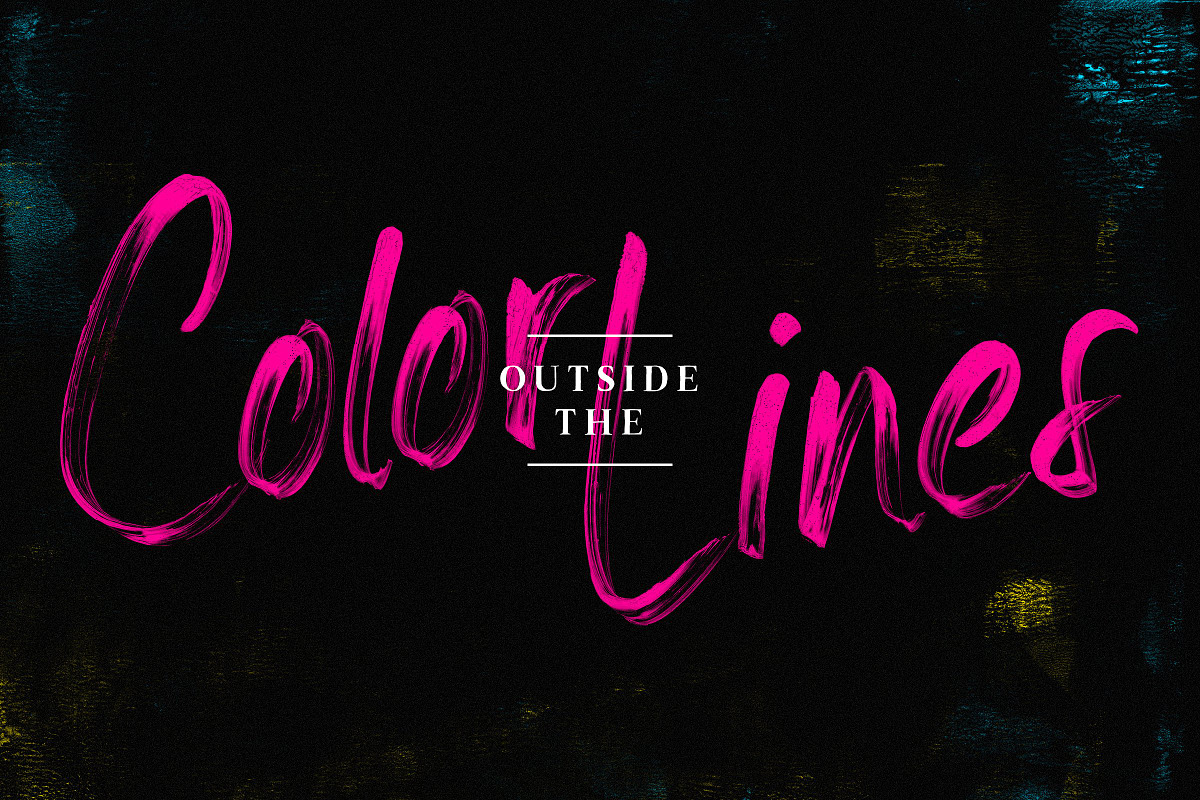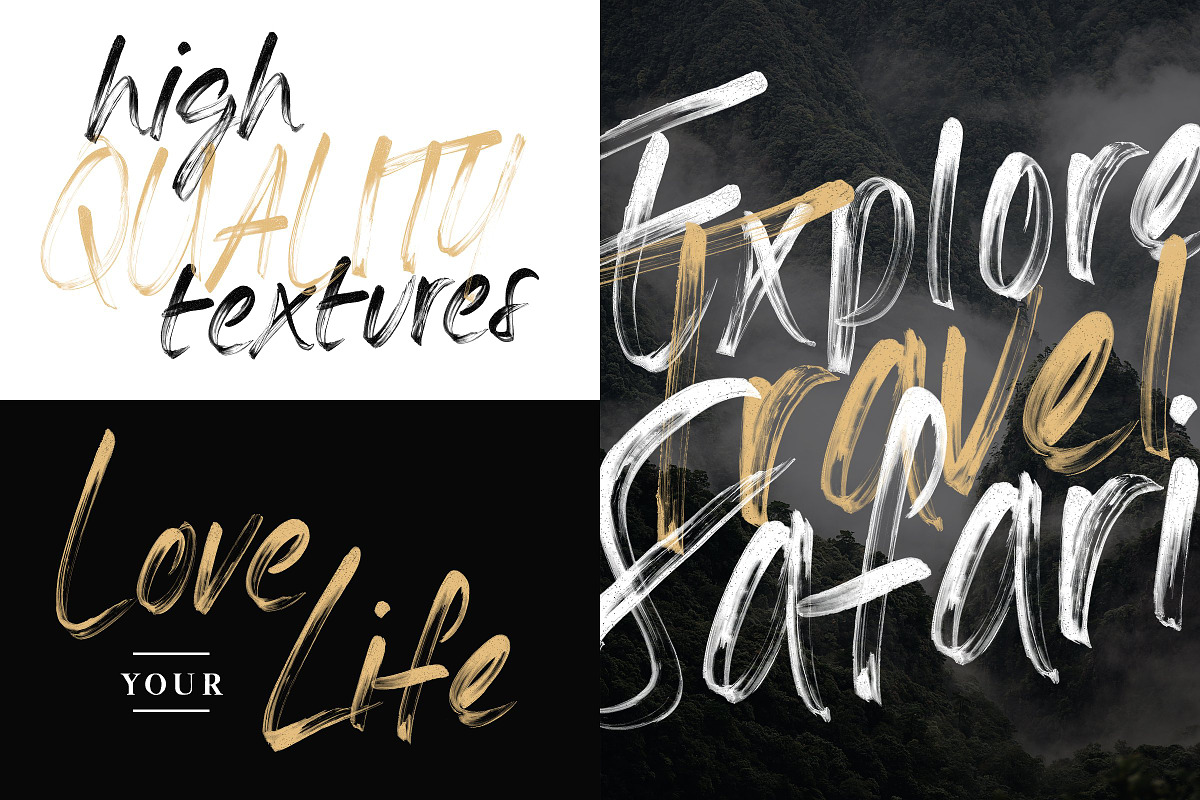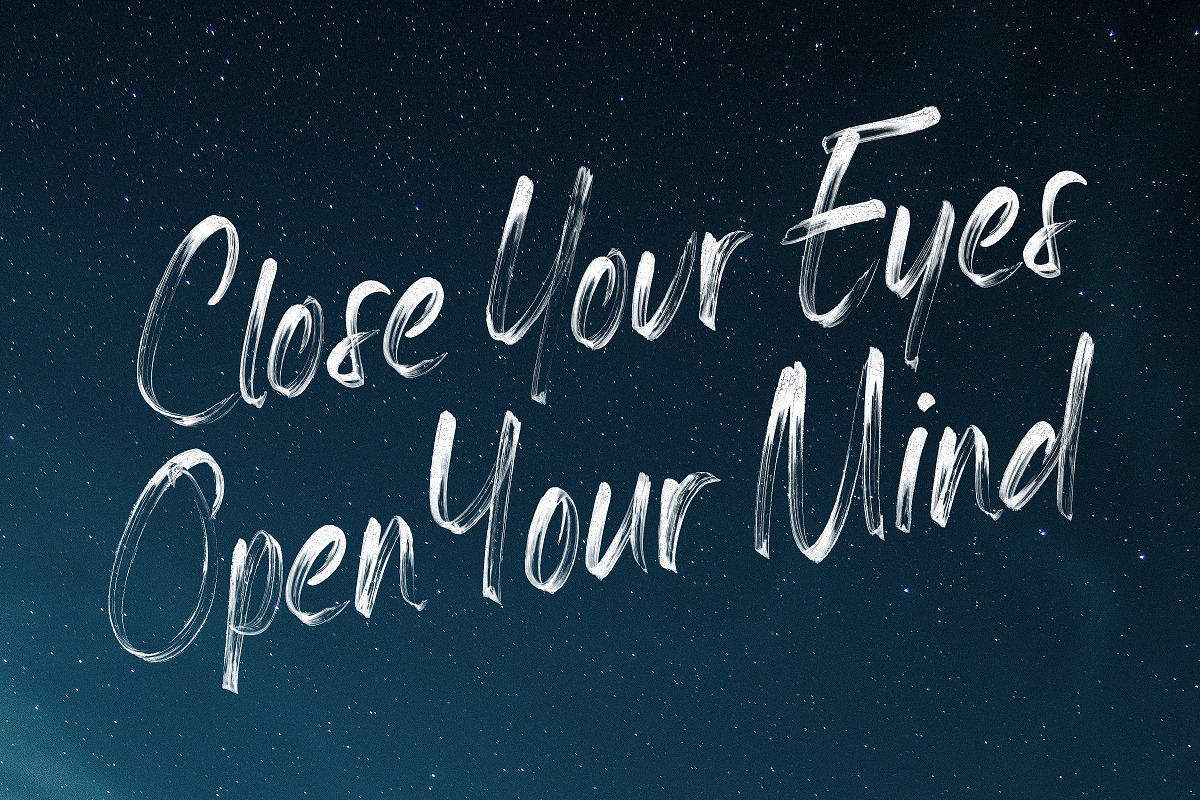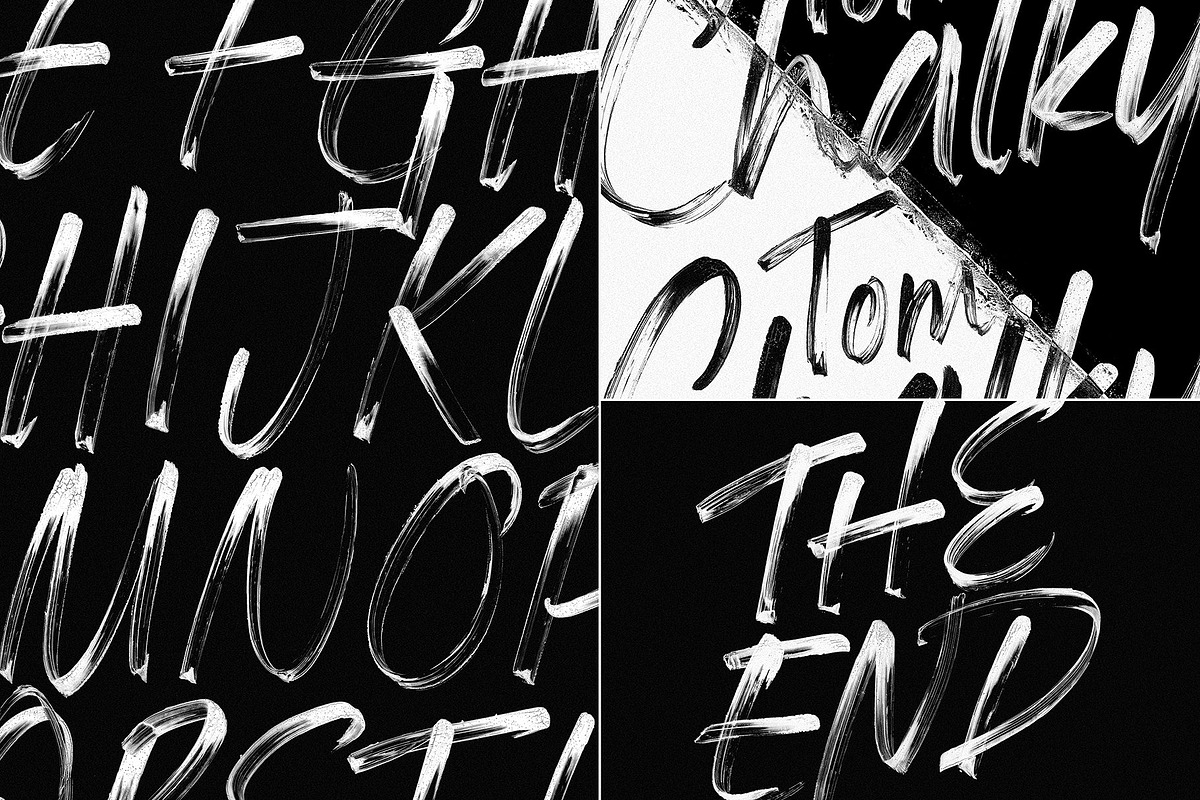
Meraki SVG Script Font
Introducing Meraki! An expressive and handwritten SVG script font featuring beautifully unique textures, alternate glyphs for both uppercase and lowercase letters, and multilingual support.
The Word 'Meraki' is often used by the Greeks to describe doing something with soul, creativity, or love; it's also the perfect summary for my feelings toward font design, particularly since the launch of the SVG format. Having the ability to skip the vector process (the slaughter house for textures) is an absolute game changer; Something that's immediately noticeable when using Meraki Script.
What are SVG Fonts? SVG is an entirely new font format that functions similarly to standard fonts. The big difference is that this new format allows font designers to incorporate as much detail as we wish into our creations by using high-resolution bitmap images as opposed to vector
Meraki Script SVG The original Meraki Script font oozing with personality and high quality textures.
Meraki Script Alt SVG An alternate font with entirely different lowercase and uppercase letters to switch between for improved authenticity and layout.